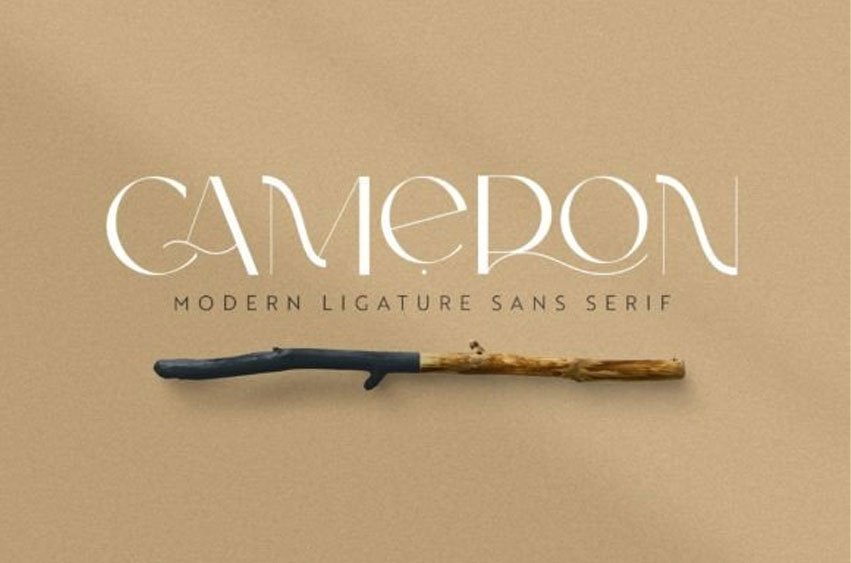
Cameron Font
Cameron Font is a stylish ligature sans serif font. It looks stunning on wedding invitations, thank you cards, quotes, greeting cards, logos, business cards, and every other design which needs an elegant touch.